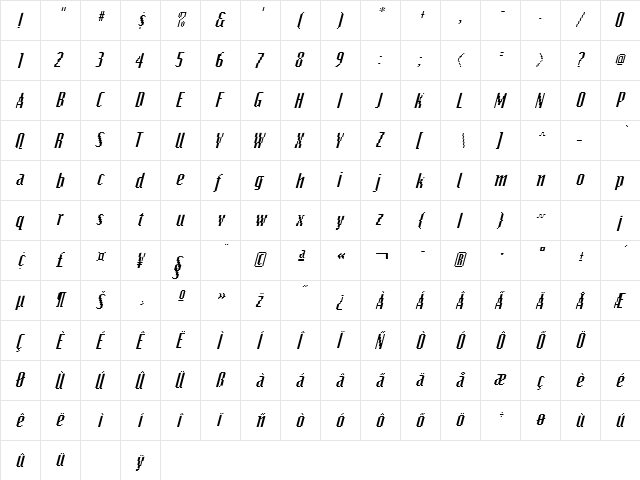
VideoCondSSK Italic Font Preview
Design Context for VideoCondSSK Typeface
VideoCondSSK offers clean, dependable letterforms without strong stylistic allegiance, making it a practical choice for designers who need flexibility. Its italic angle brings a sense of urgency and motion to the letterforms. Its narrow stance lets it pack a punch even in space-constrained designs.
Pro Tip: Try VideoCondSSK for annotation and caption copy alongside an upright companion — the contrast in angle creates a dynamic but ordered typographic system.